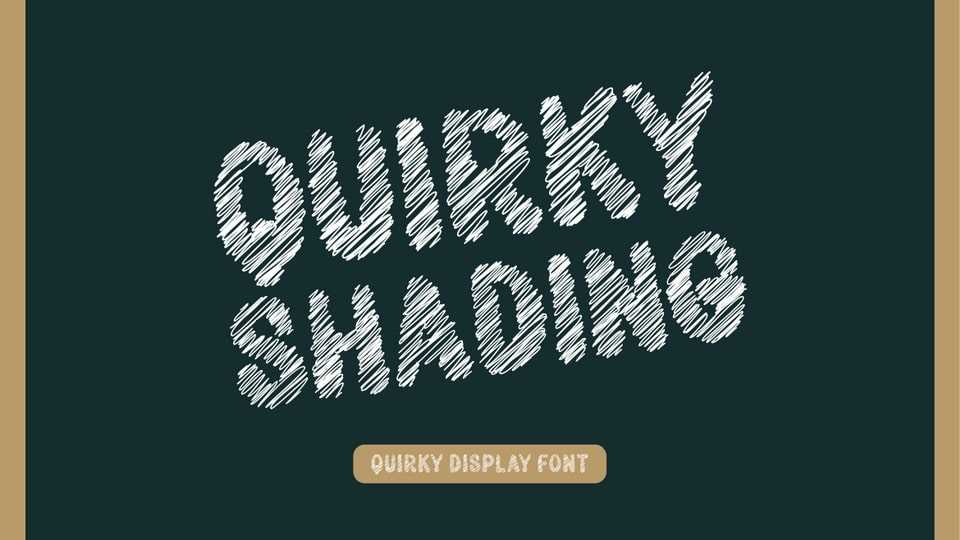
Download Quirky Shading font, a playful and quirky hand-drawn typeface with delightful shaded details that add depth and charm.
Designer: Ainun Jinan